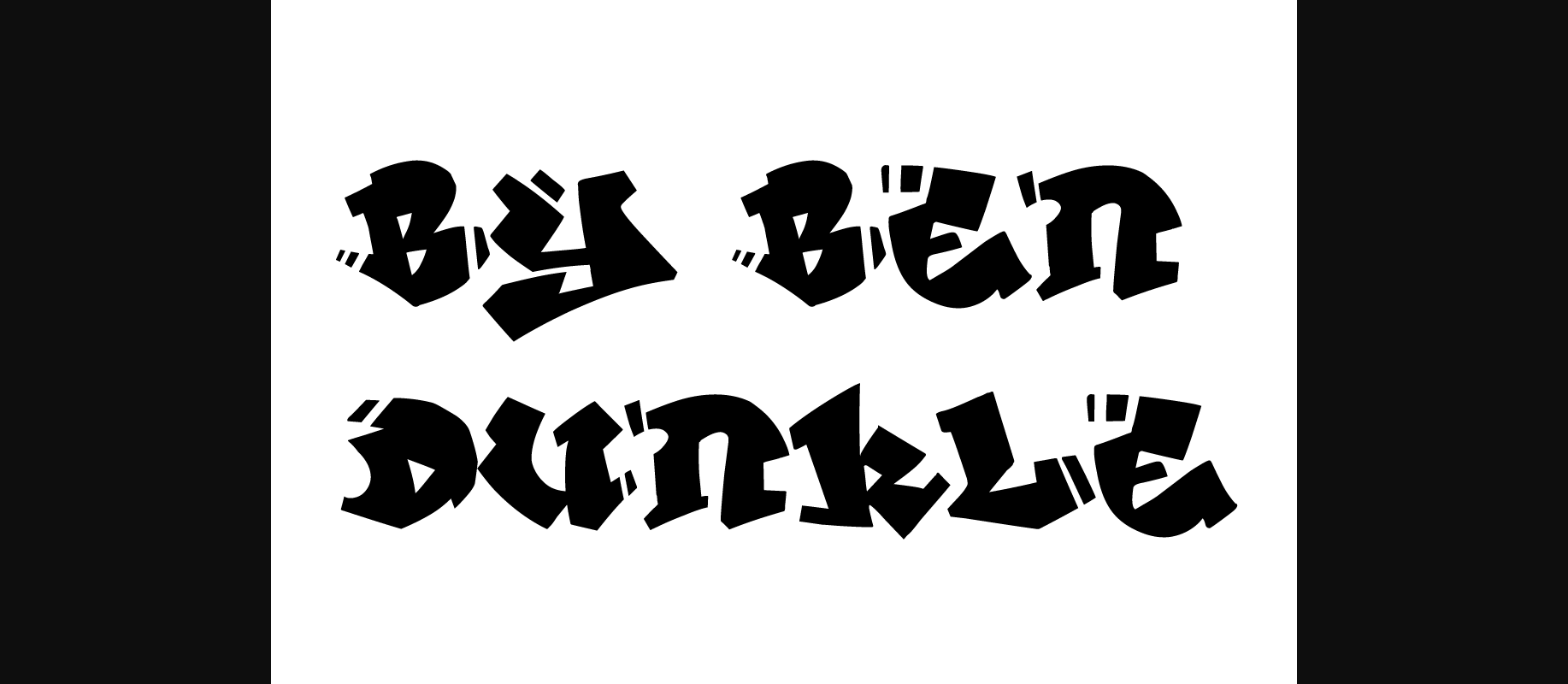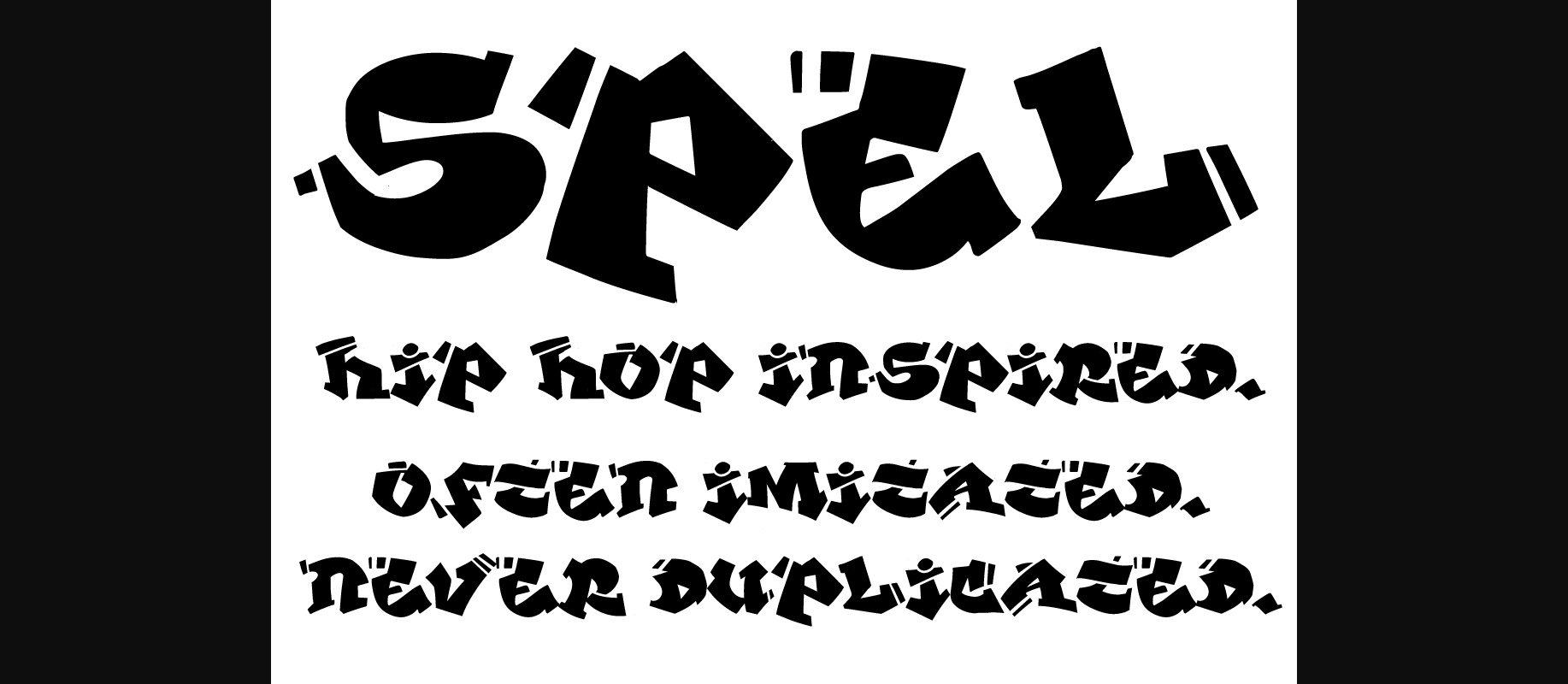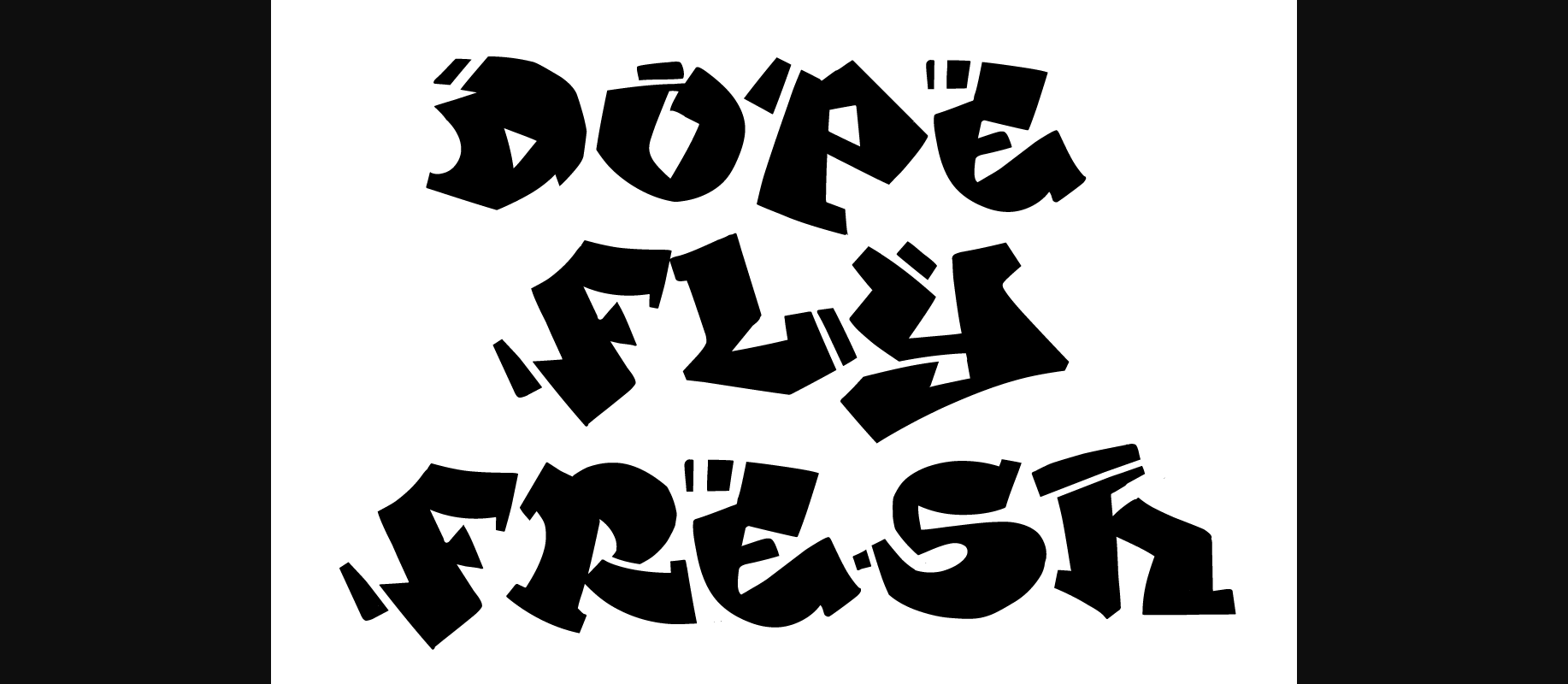
Spel Font
About Spel Font
Channeling urban allure with a dash of nostalgia, Spel is a font resonating with vibrant hip-hop vibes. Crafted from the designer’s personal graffiti tag from childhood, Spel’s daring lines and dynamic curves echo the rhythm and spirit of street art, making it an ideal font for those seeking a distinct, compelling style.